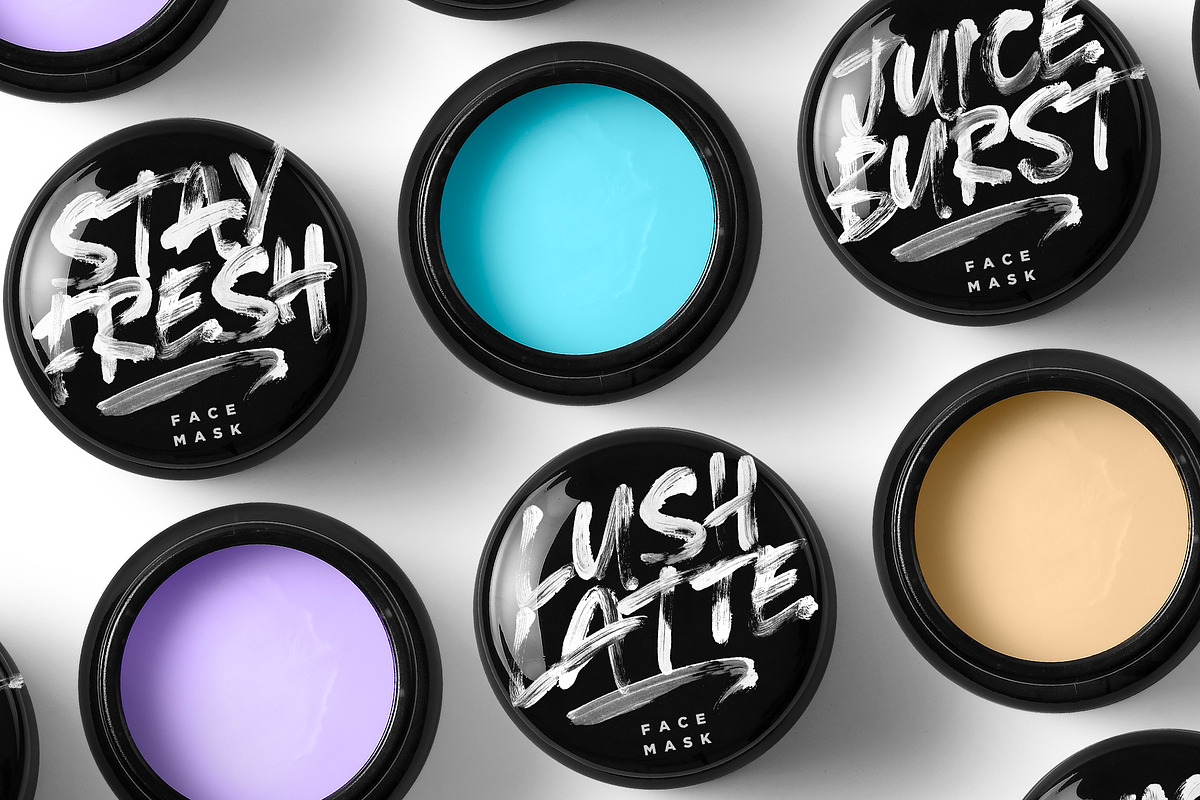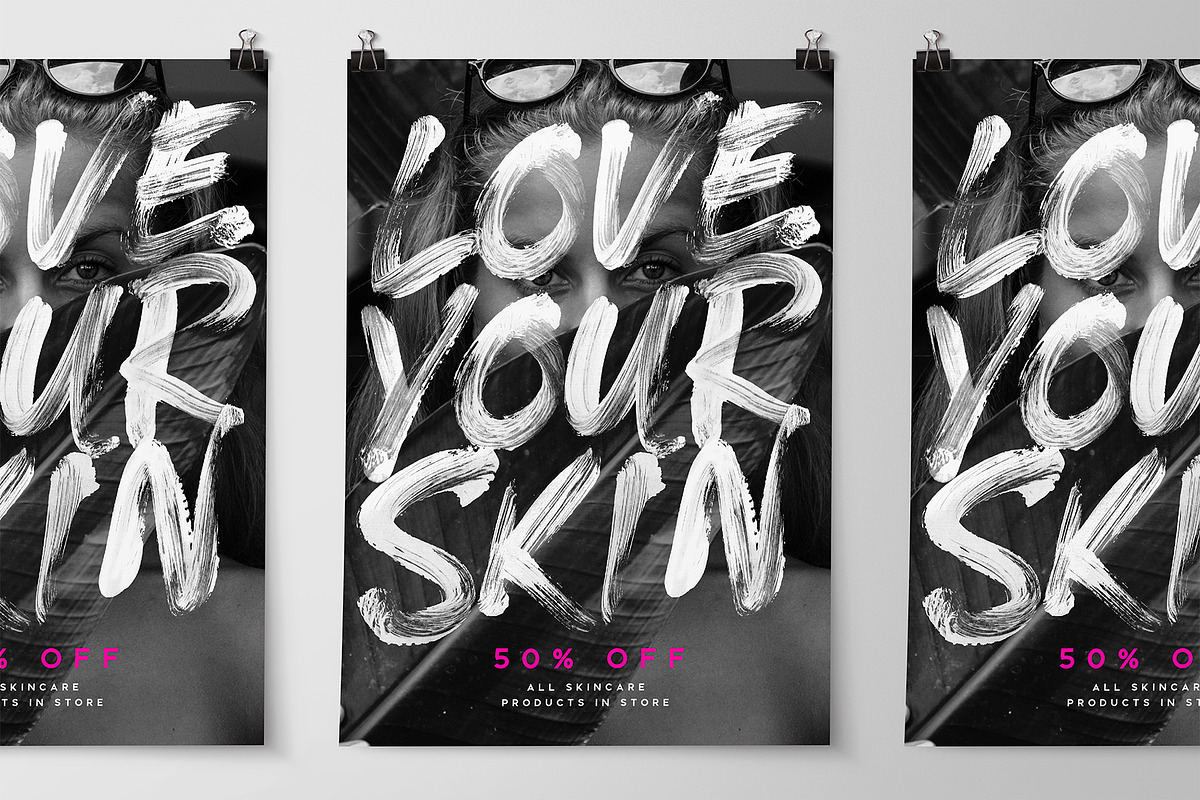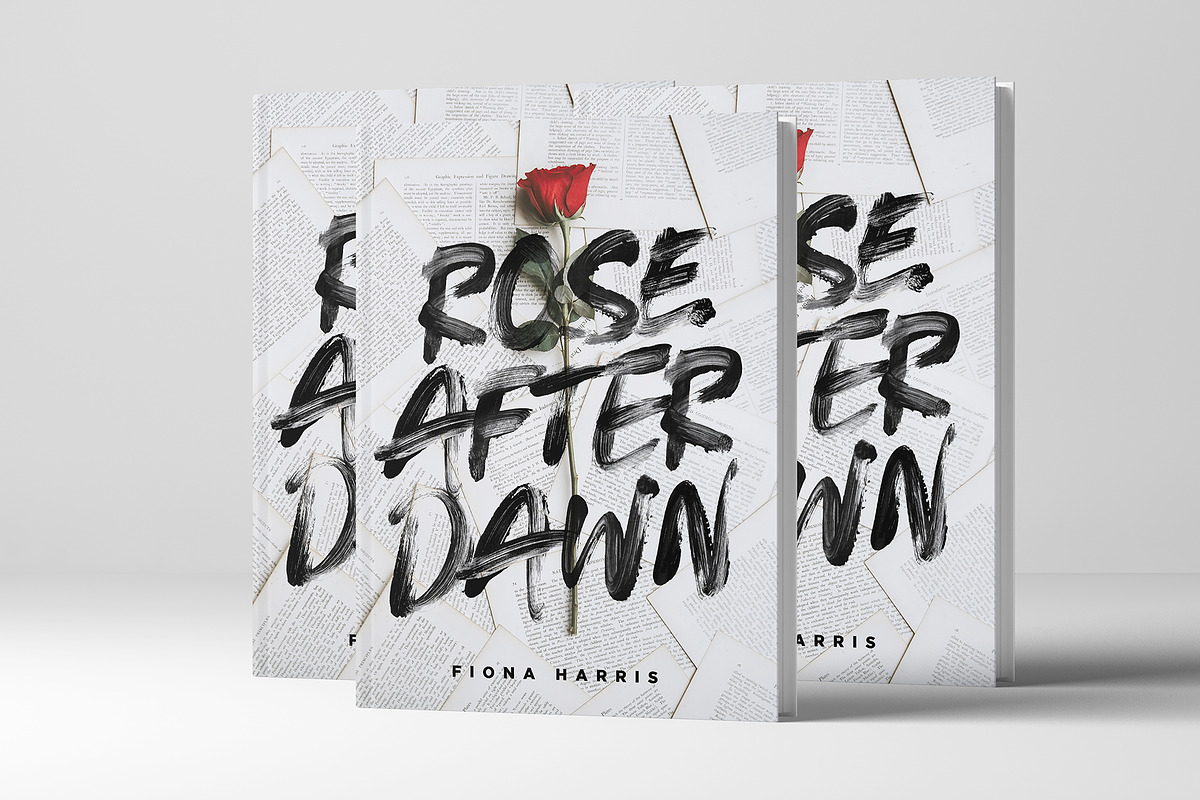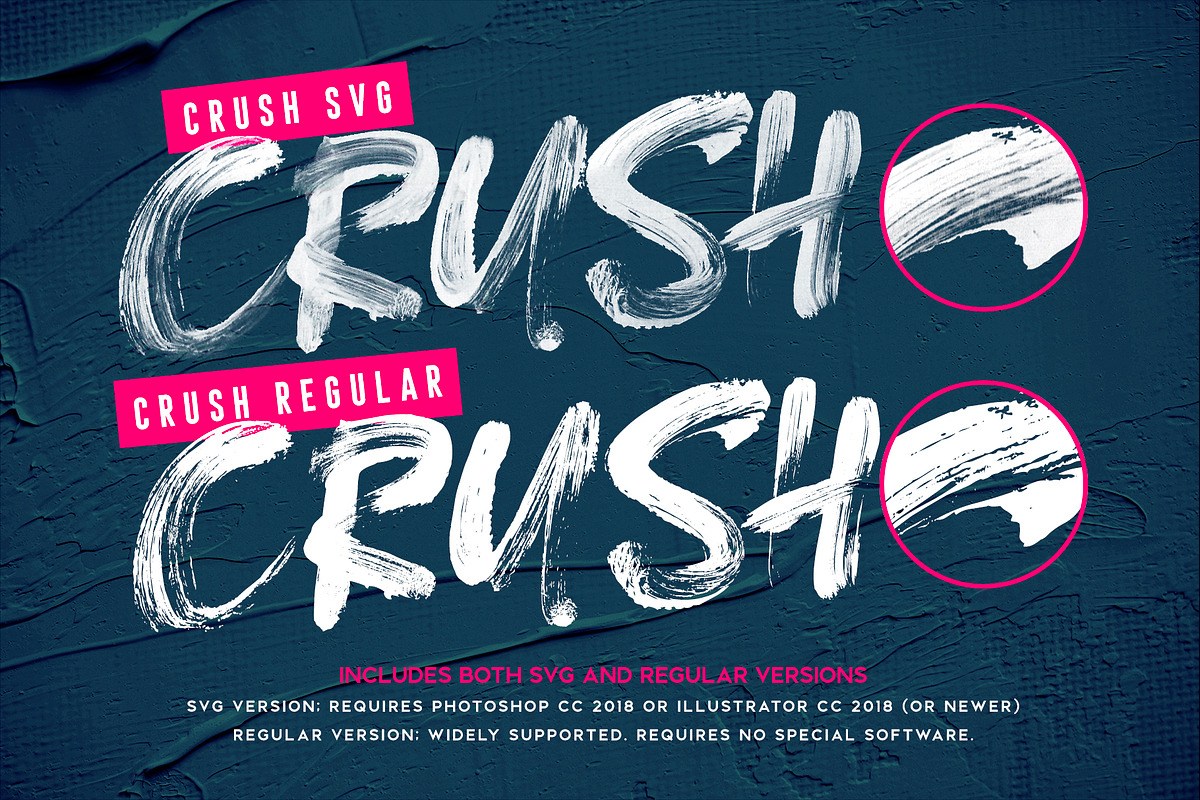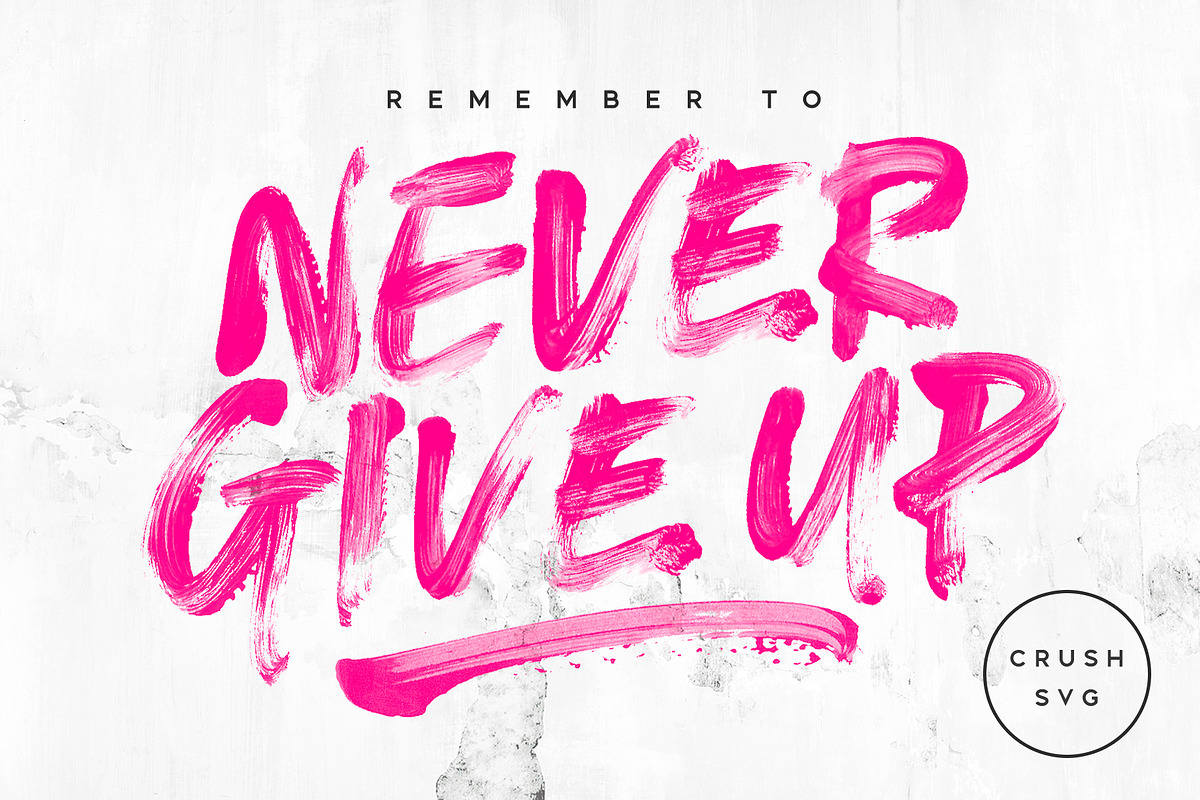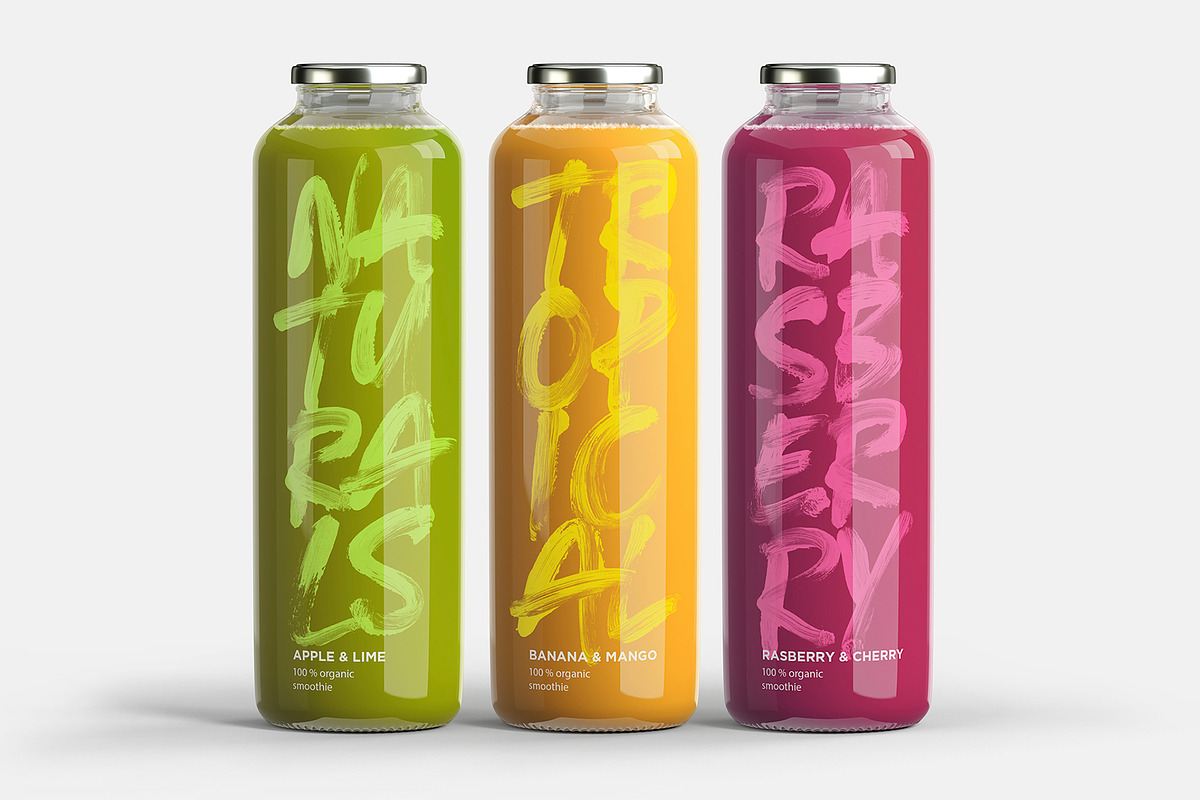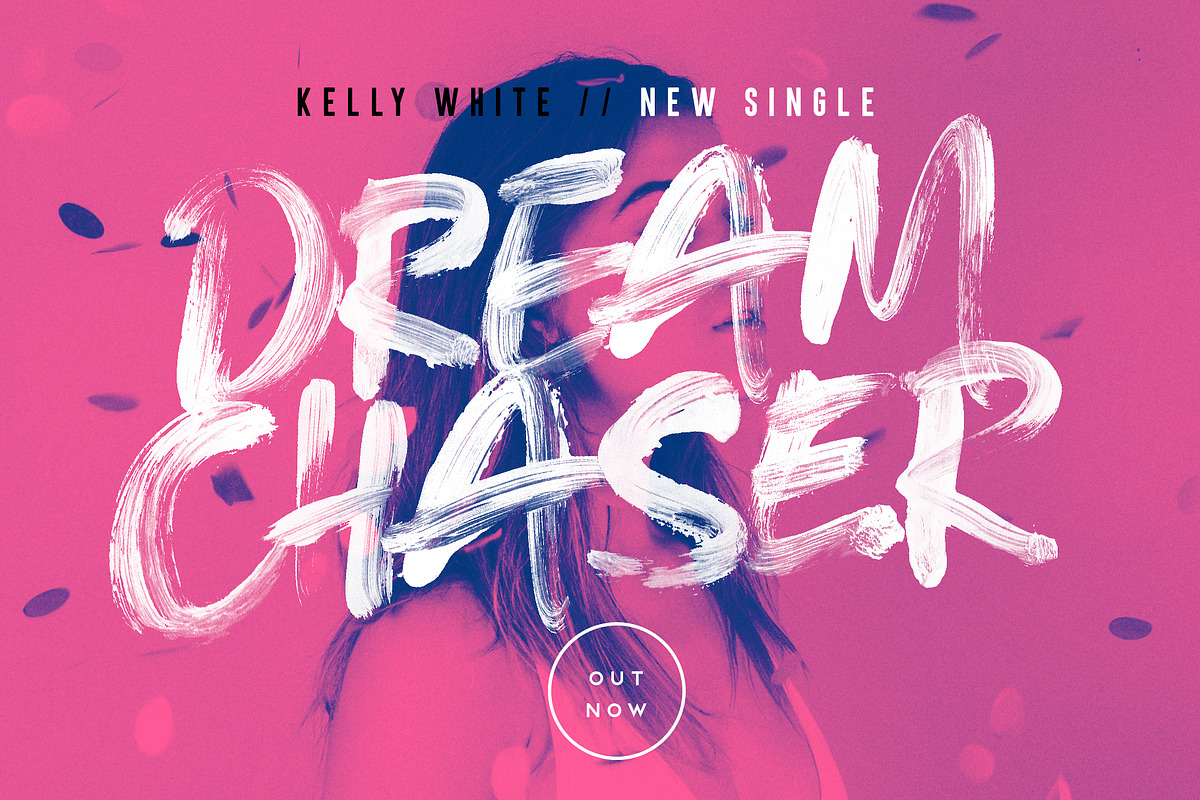
CRUSH SVG Font
Introducing CRUSH; A messy, loud & proud all-caps brush font which embraces imperfection. CRUSH uses new Opentype-SVG font technology to provide super high resolution paint strokes completely built in to the font as a transparency - just simply type away and let the font do it's magic. It's guaranteed to make a big impact as large display text on product packaging, advertisements, posters, cover designs, social media & more.
Alternate Characters • CRUSH Also includes two sets of each letter, allowing you to mix up your characters and create truly authentic, customised text layouts. Just simply switch between upper & lowercase on your keyboard to switch between the two letter sets.
Swashes • Both the SVG and Regular versions include 4 swashes; use these to underline your script text and add a stylish finishing touch. Simply type any of the square brackets to generate a swash [ ] { }